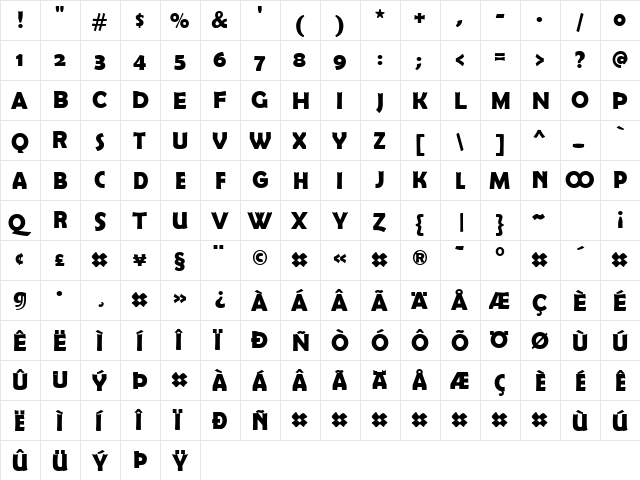
Berlinsans DemiExpert Font Preview
Berlinsans DemiExpert
Design Context for Berlinsans Typeface
Berlinsans is a composed and adaptable typeface that performs quietly and consistently across a wide range of design contexts.